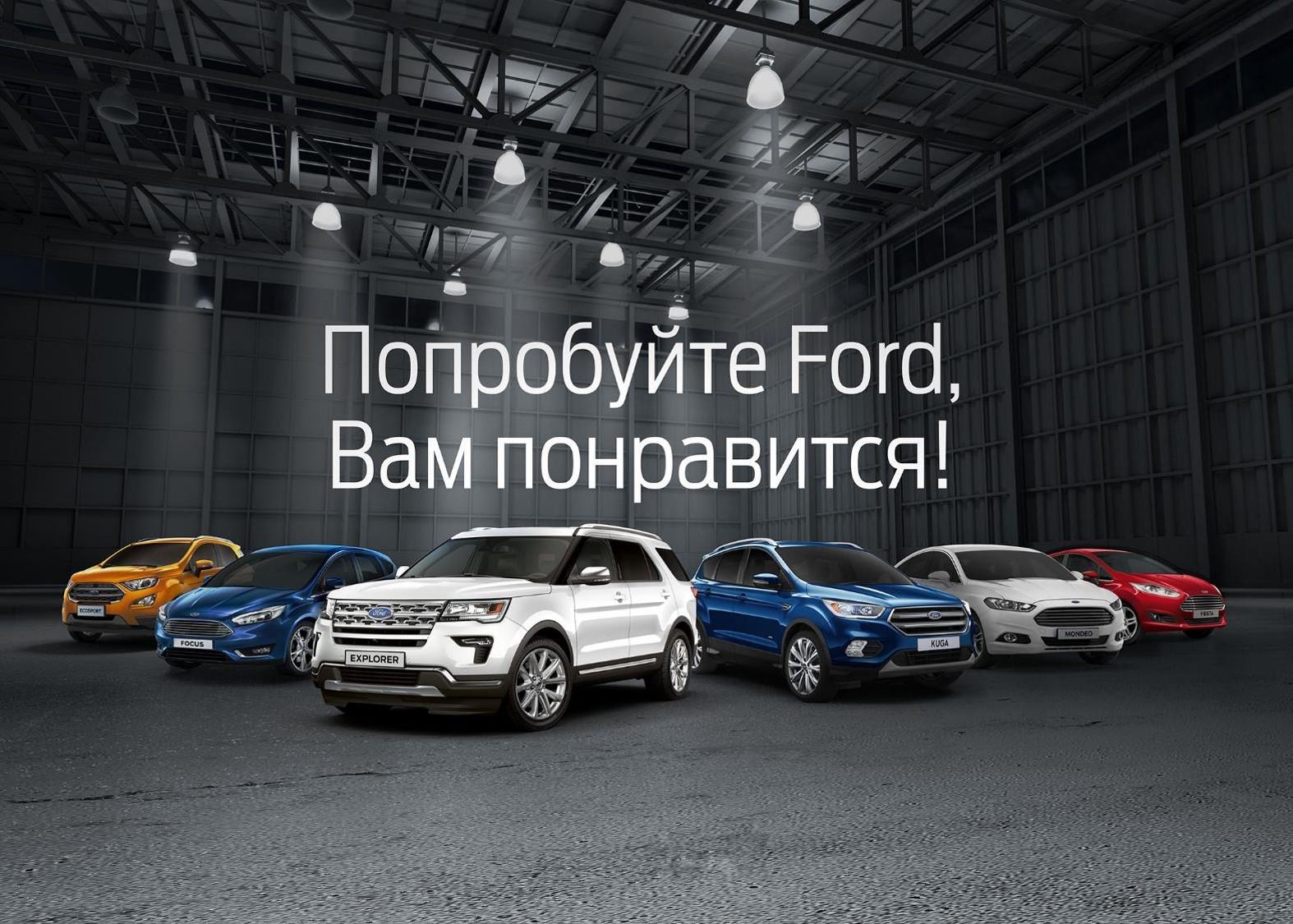
During his tenure as a Senior Custom Designer at Font Bureau in the early 2000s, Cyrus Highsmith experimented with new sans serif forms. Antenna emerged from one of those trials, which introduced squareness into Highsmith’s signature energetic curves. The resulting letterforms were simultaneously calm and tense, vigorous and balanced, with a deliberate rhythm that propelled words forward while keeping the text image grounded. This combination of reliability and dynamism was exactly what Ford, the US-based multinational automaker, was looking for.
“Multinational” is the keyword here. In order for Ford to communicate with a global audience, Antenna’s character set needed to be expanded to include the Cyrillic and Greek alphabets, as well as all necessary accents for composing Vietnamese. In January 2010, Dyana Weissman—now Custom Type Director at Type Network—set about extending the typeface’s language support.
It proved to be a mammoth assignment. Antenna has seven weights in four widths, all with matching italics. Many large type families interpolate, meaning their intermediate styles are generated relatively quickly from the extreme styles using mathematical formulas, but because of its unique design, this isn’t the case with Antenna. Weissman had to correct carefully and fine-tune several of the new characters for each of the fifty-six styles. She was up to the challenge and turned the project around in record time.